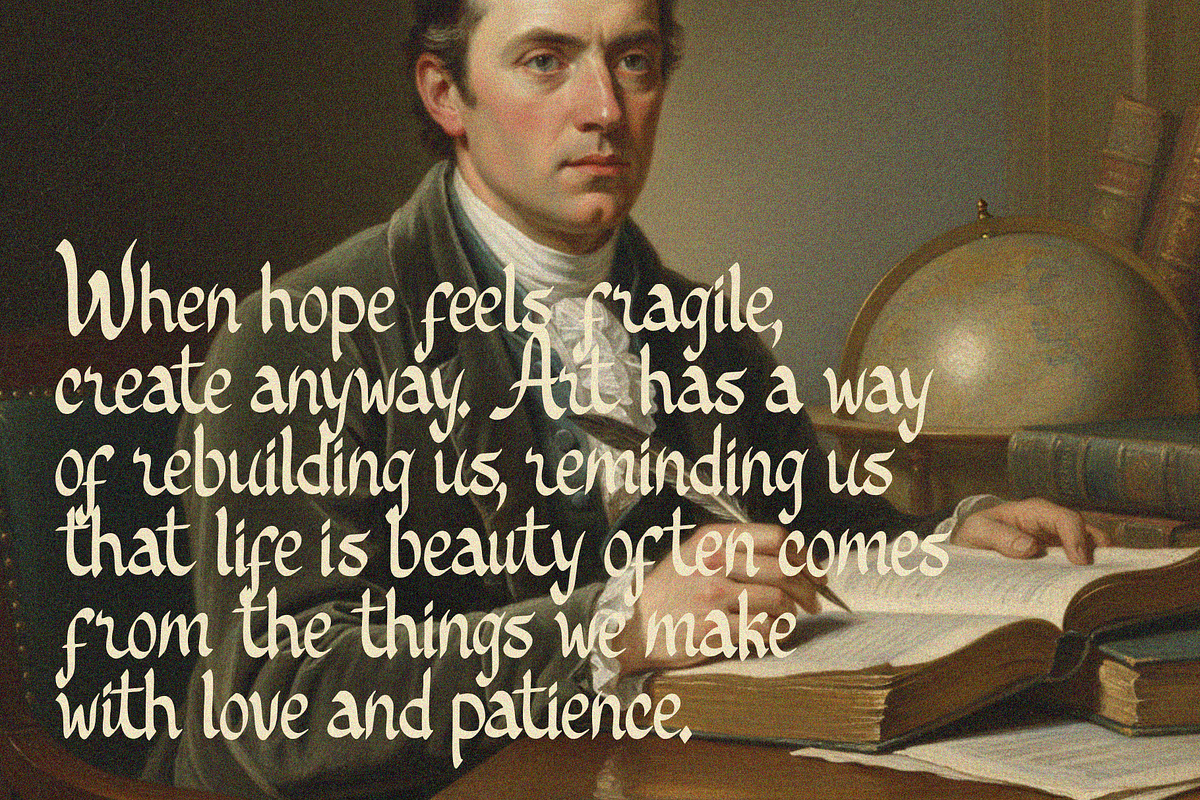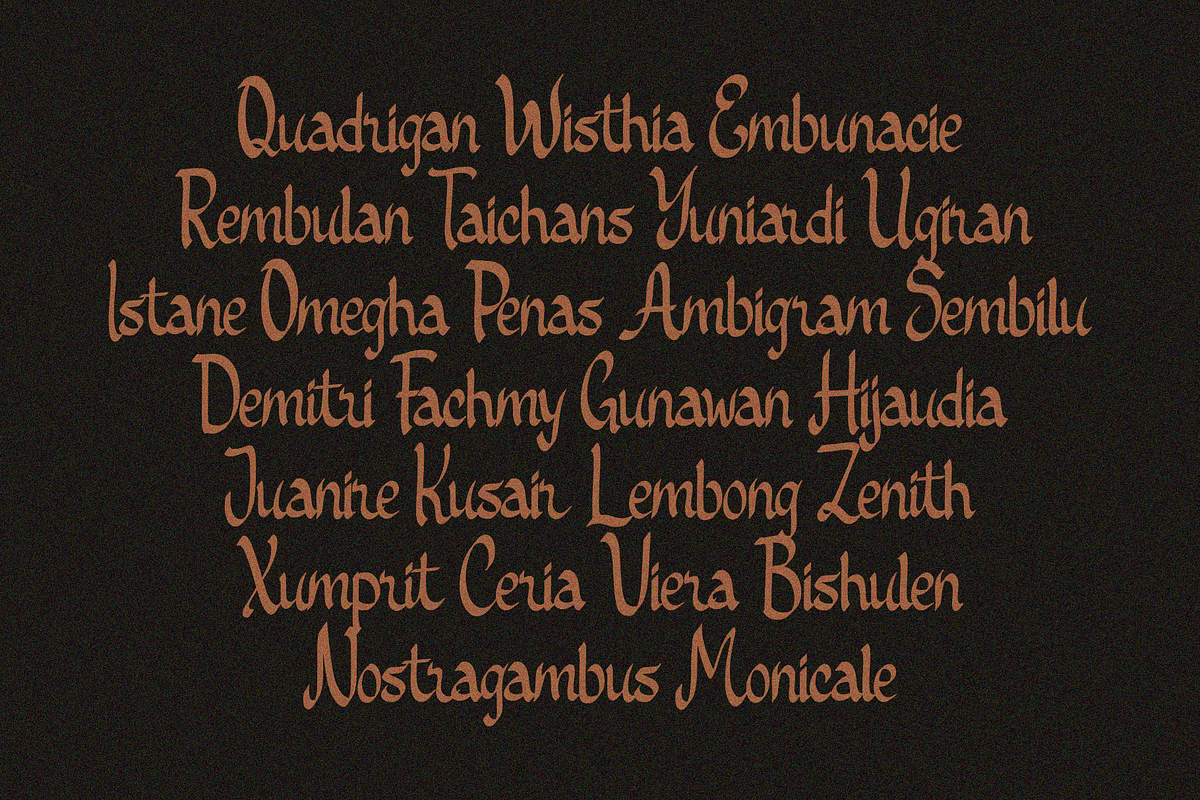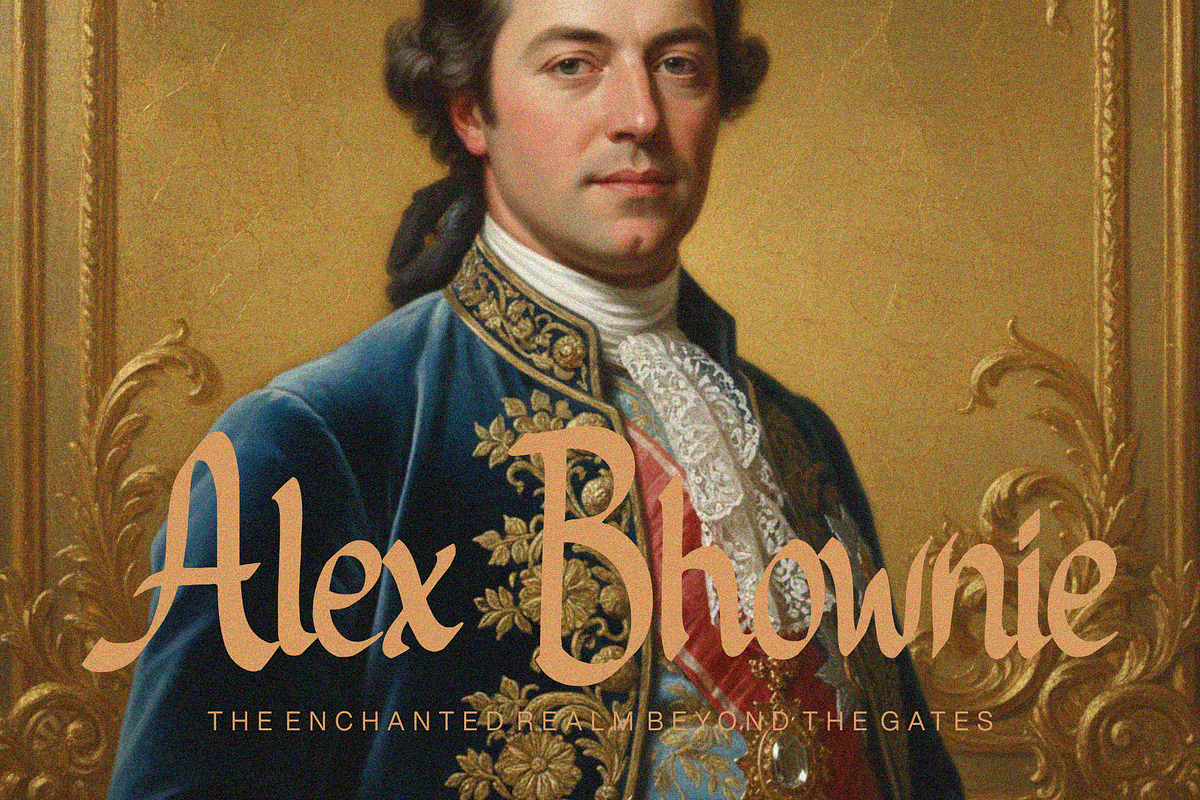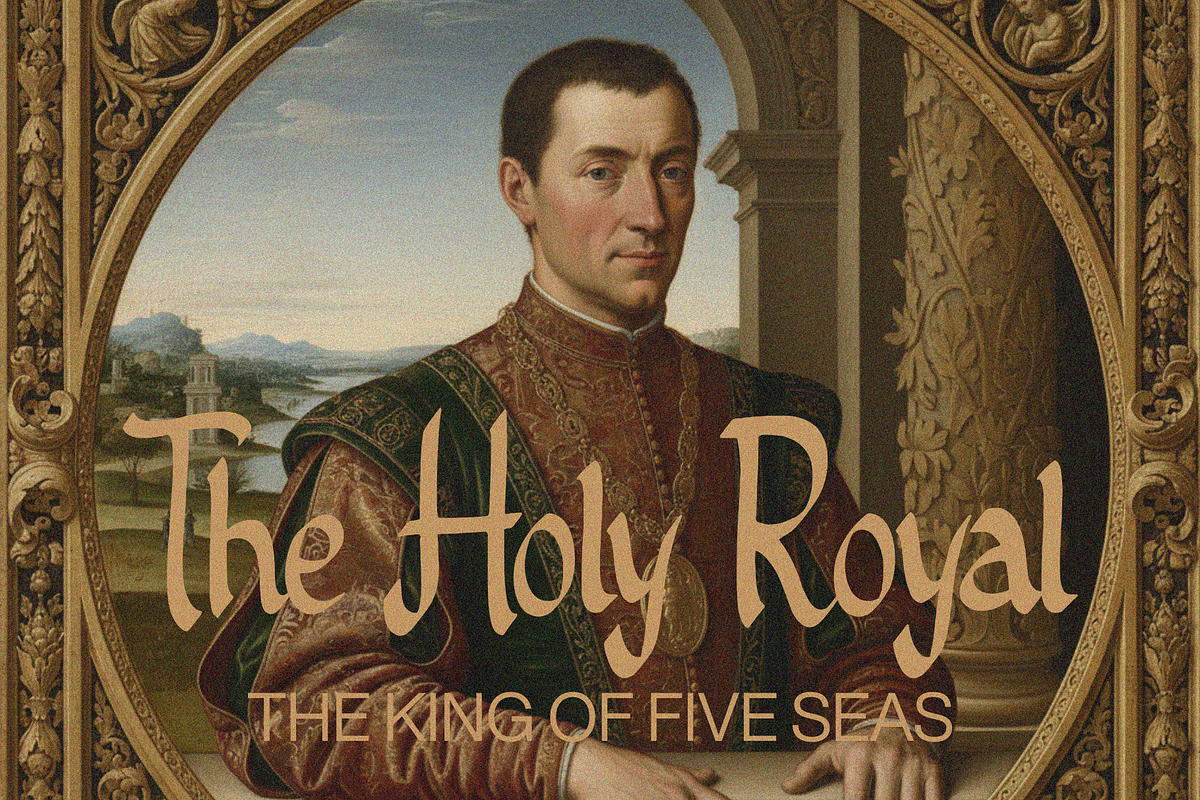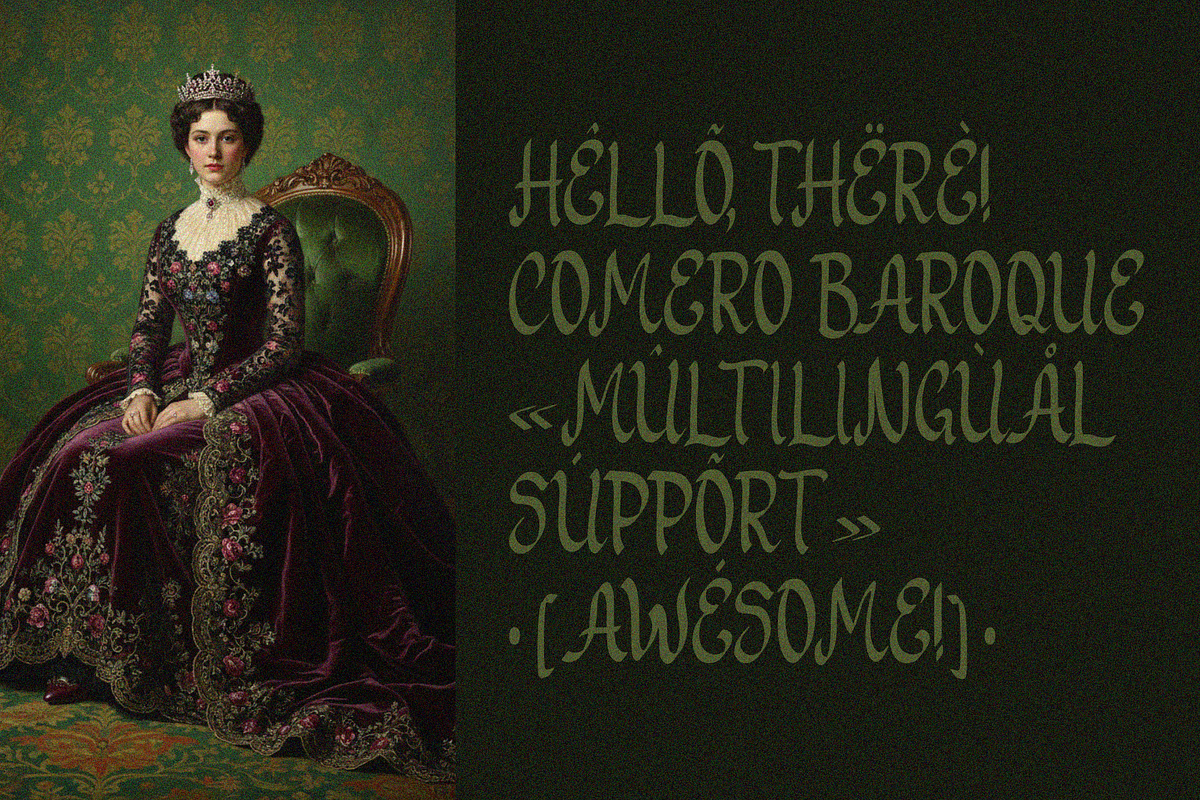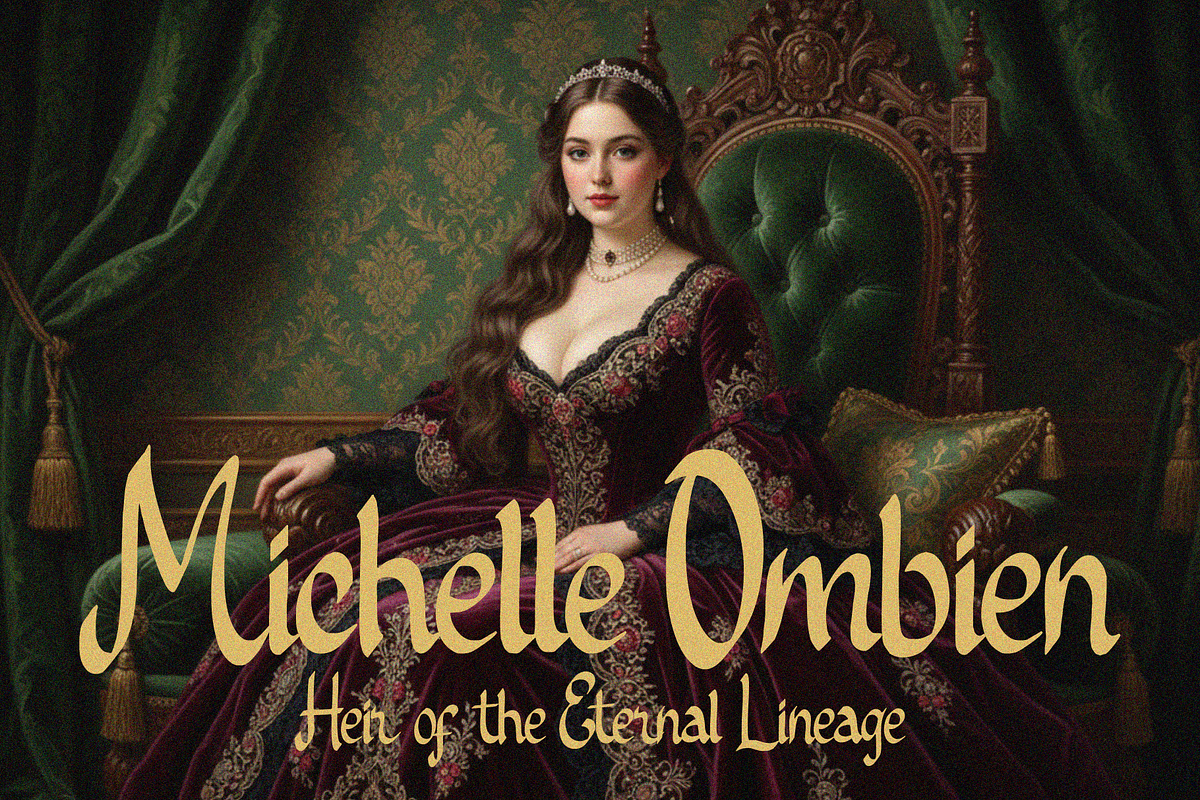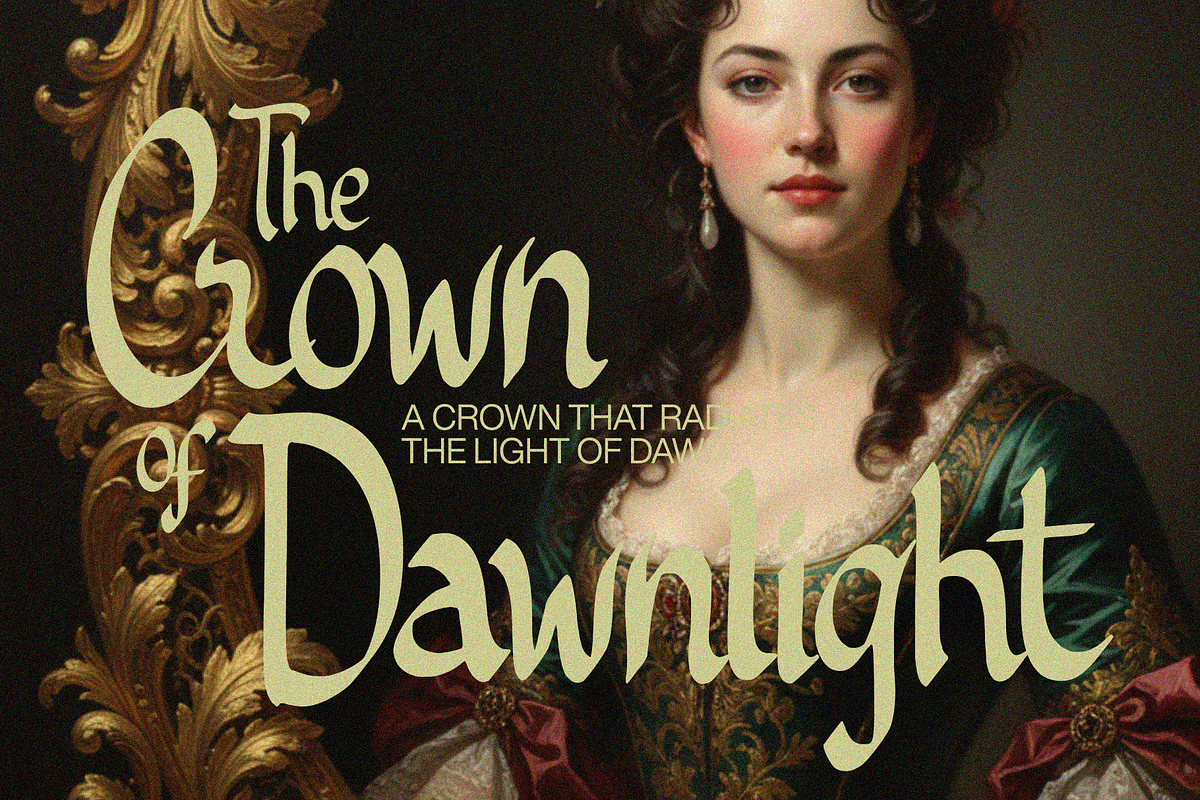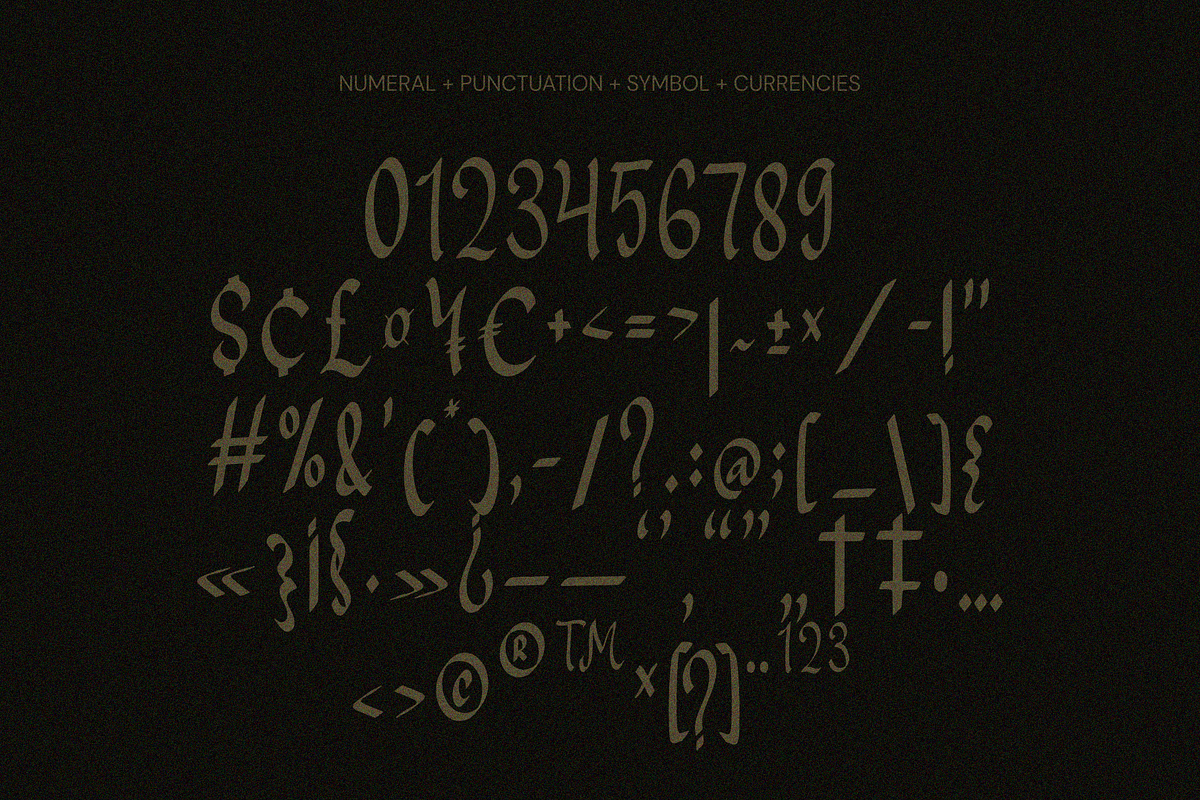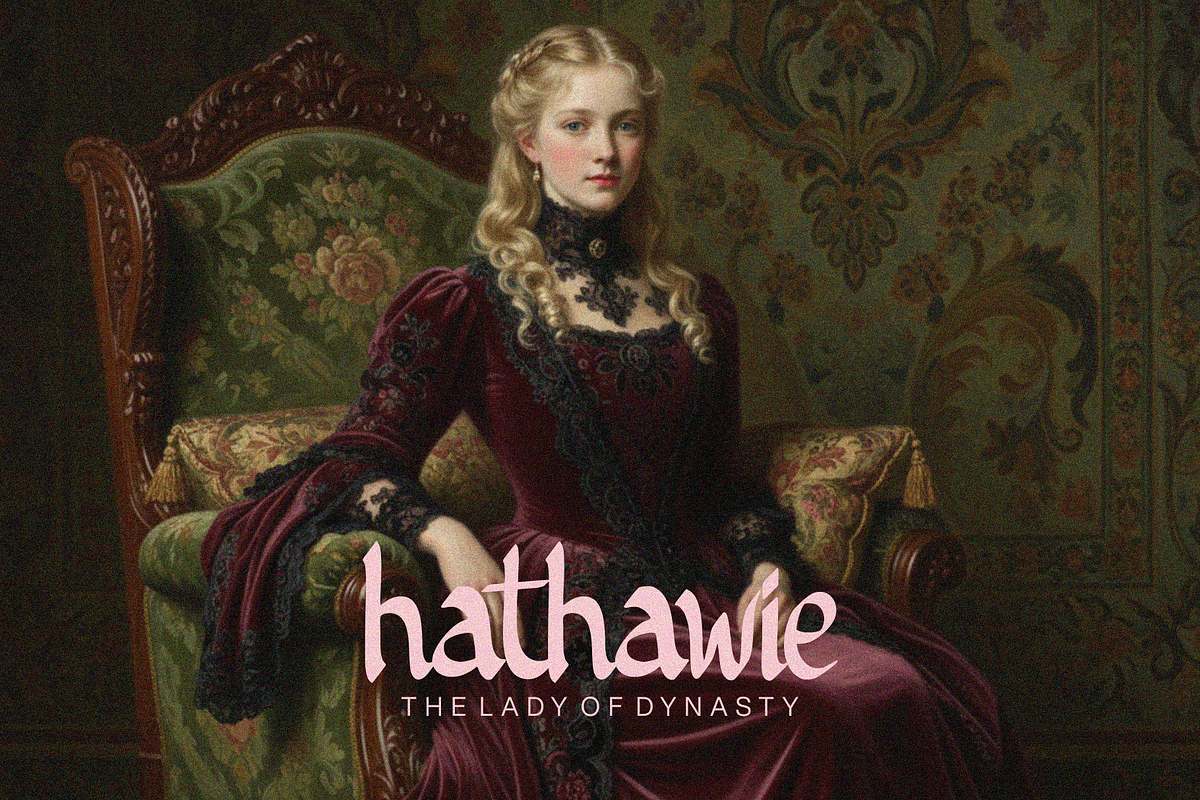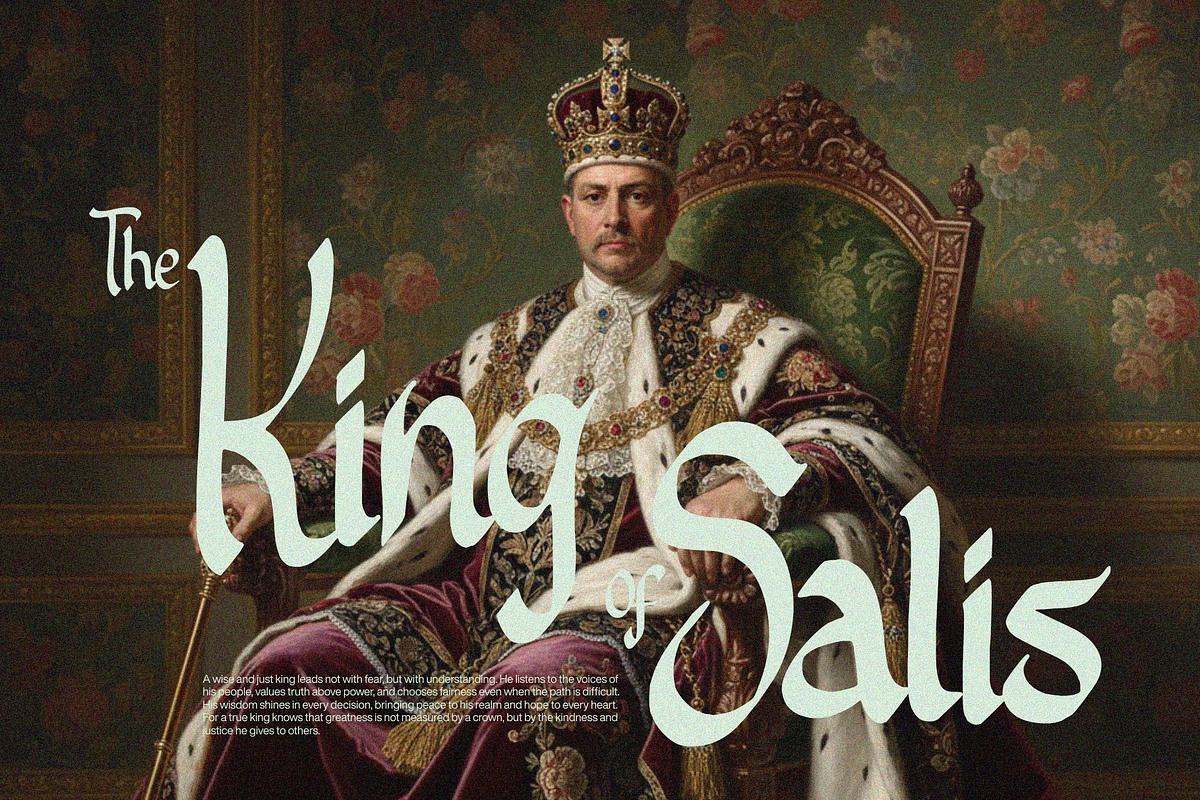
Comero Baroque
Comero Baroque is a classic, medieval-inspired handwritten font infused with rich baroque and Victorian aesthetics. Its elegant strokes and ornamental character deliver a timeless feel—bringing echoes of knights, princesses, queens, and ancient kingdoms into your visual storytelling.
Crafted with a hand-drawn touch, this font blends historical charm with modern usability, making it a perfect choice for creative agencies, designers, and storytellers looking to add a regal yet artistic flair. Whether used for posters, headlines, book titles, branding, or fantasy-themed visuals, Comero Baroque elevates every design with a sense of grandeur and epic narrative. Step into a world of classic beauty and medieval artistry—Comero Baroque turns every project into a royal journey.
FEATURE
- Uppercase letters
- Lowercase letters
- Punctuation marks
- Symbol set
- Currency symbols
PERFECT FOR
- Fantasy book covers
- Medieval or baroque-themed posters
- Headlines and titles
- Creative agency branding
- Fairytale or historical artwork
- Event invitations with classic themes
- RPG, knight, or kingdom-inspired visuals
- Vintage or Victorian-style packaging